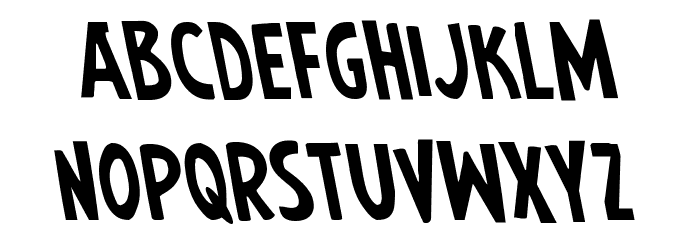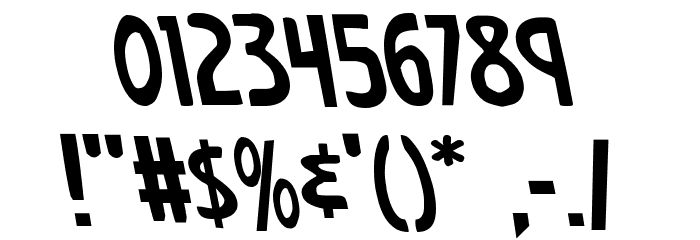
Earth's Mightiest Leftalic Font
This font features a bold and dynamic style with a slight leftward slant, giving it a unique and energetic appearance. The characters are thick and robust, with a playful yet assertive presence. The uppercase and lowercase letters maintain a consistent style, with rounded edges and a slightly condensed form. The numbers and special characters follow the same bold and slanted design, ensuring uniformity across all glyphs. This font's distinctive style makes it stand out, making it suitable for attention-grabbing designs.
A bold, slanted font with a dynamic and playful style.
- Proposed Projects: Ideal for comic book titles, posters, branding, and any project requiring a bold and energetic typeface.